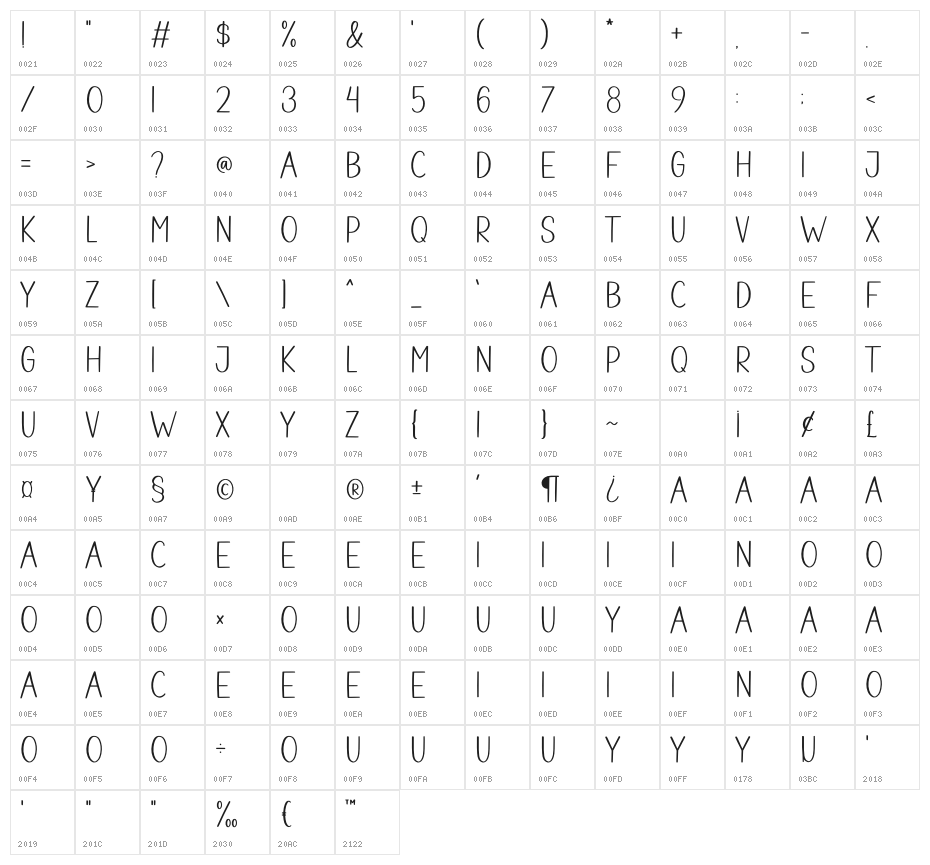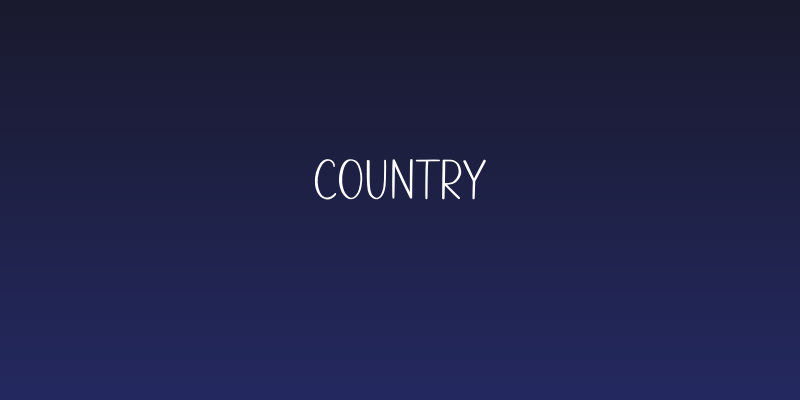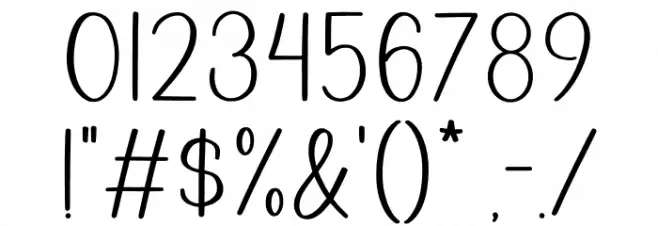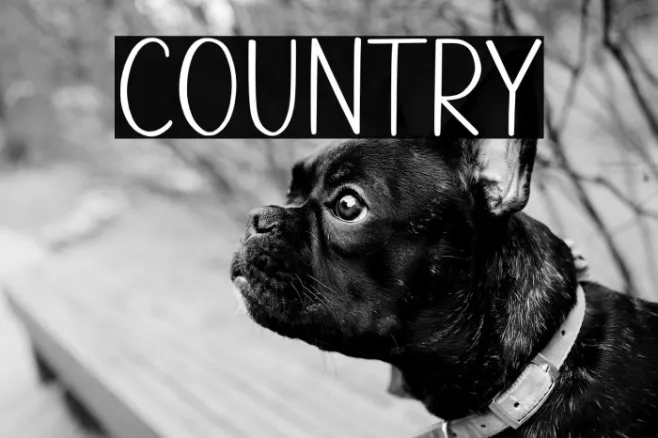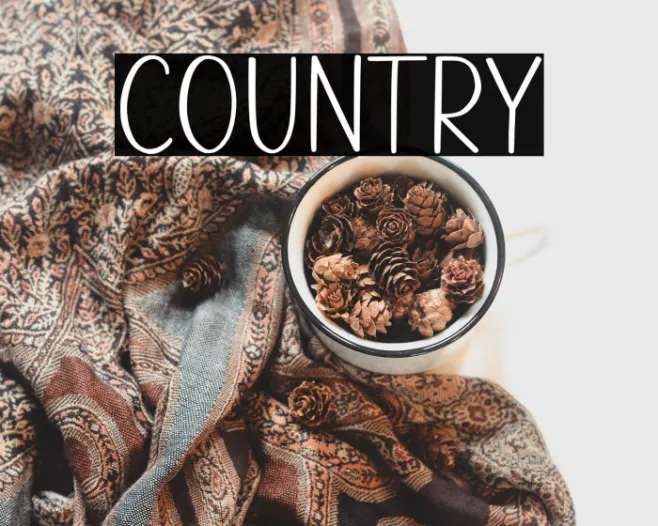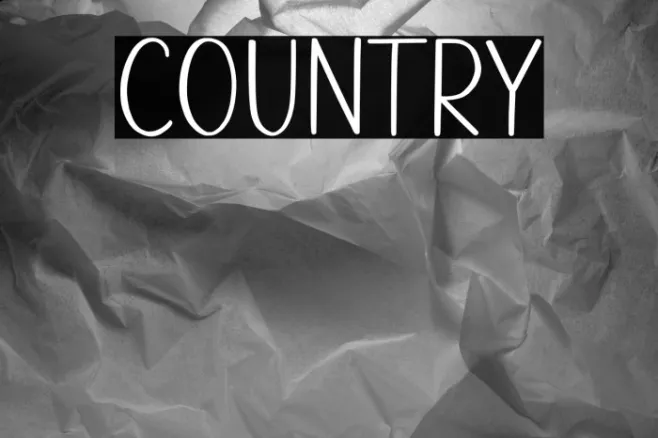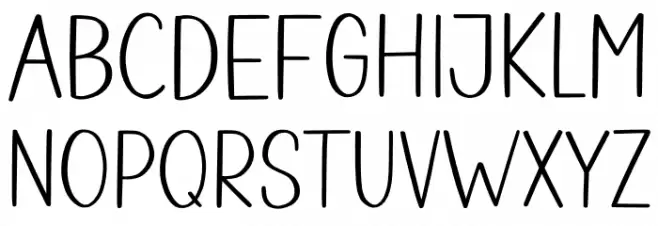
Country Font
Country Description
A playful, handwritten sans-serif font with a casual and friendly appearance. The characters are slightly irregular, giving it a personal touch.
| Use Case | Headlines, Informal text, Branding |
| Proposed Projects | Greeting cards, casual branding, children's books. |